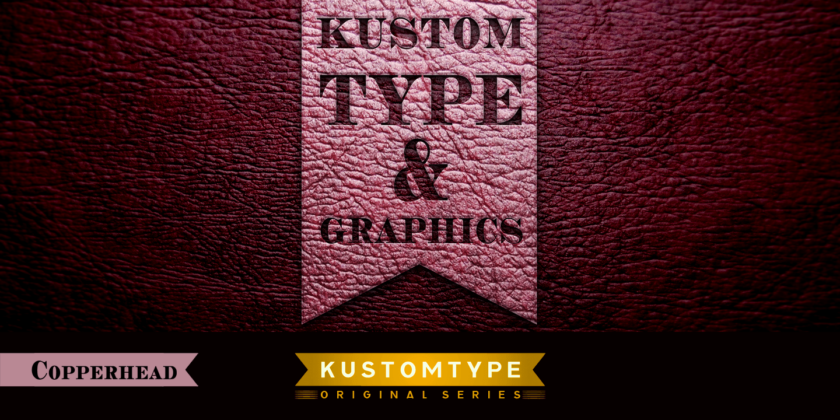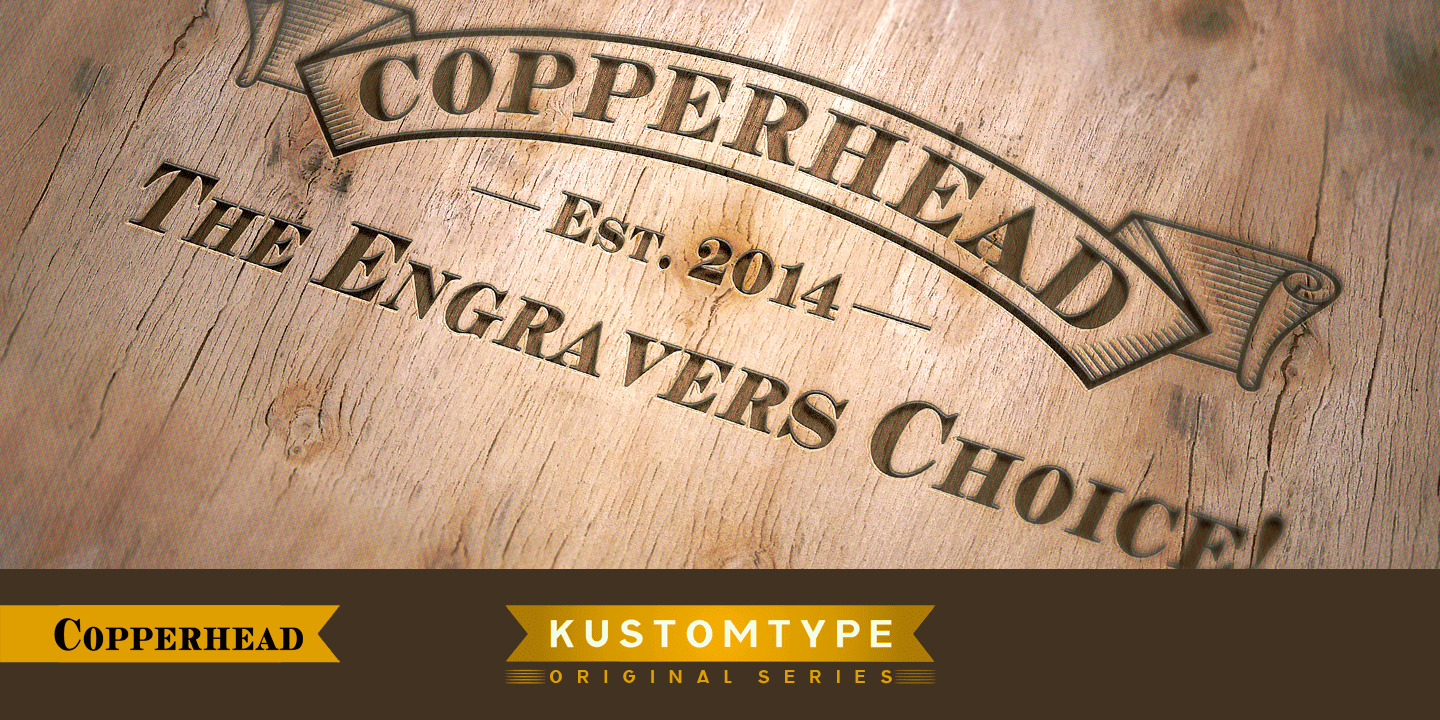
HomeFont BrosCopperhead Font Bros Copperhead FacebookXPinterestWhatsApp 1 of 2 About Copperhead is an \’all caps font\’ with thin rounded serifs. This font is specially designed for customers or companies fancying the Goudy  DOWNLOAD NOW People also explored Wooden Log Font Brogllin Font Boulferd Font Dickson Font Quickel Font Statendam Lylia Font Rellion Font Lardio Font 248 0 TagsCopperhead Font Previous articleJazz ScriptNext articleGrandesa LEAVE A REPLY Cancel reply Comment: Please enter your comment! Name:* Please enter your name here Email:* You have entered an incorrect email address! Please enter your email address here Website: Save my name, email, and website in this browser for the next time I comment. Personal Use Free Jilliant Personal Use Free Read more about this font Evensong Hollow Personal Use Free Read more about this font Rellista Script Personal Use Free Read more about this font Bellarin Personal Use Free Read more about this font BLOG 5 Fonts That Will Dominate Design Trends in 2026 5 Fonts for 2026 That Will Dominate Design Trends Typography plays a critical role in visual communication, and as we look ahead to 2026, it’s... Free Fonts Risk: Why Free Fonts Can Be Dangerous for Designers Top 10 Handwritten Fonts That Elevate Your Designs How to Cut Any Font on Cricut: Convert a Font to SVG (Free)